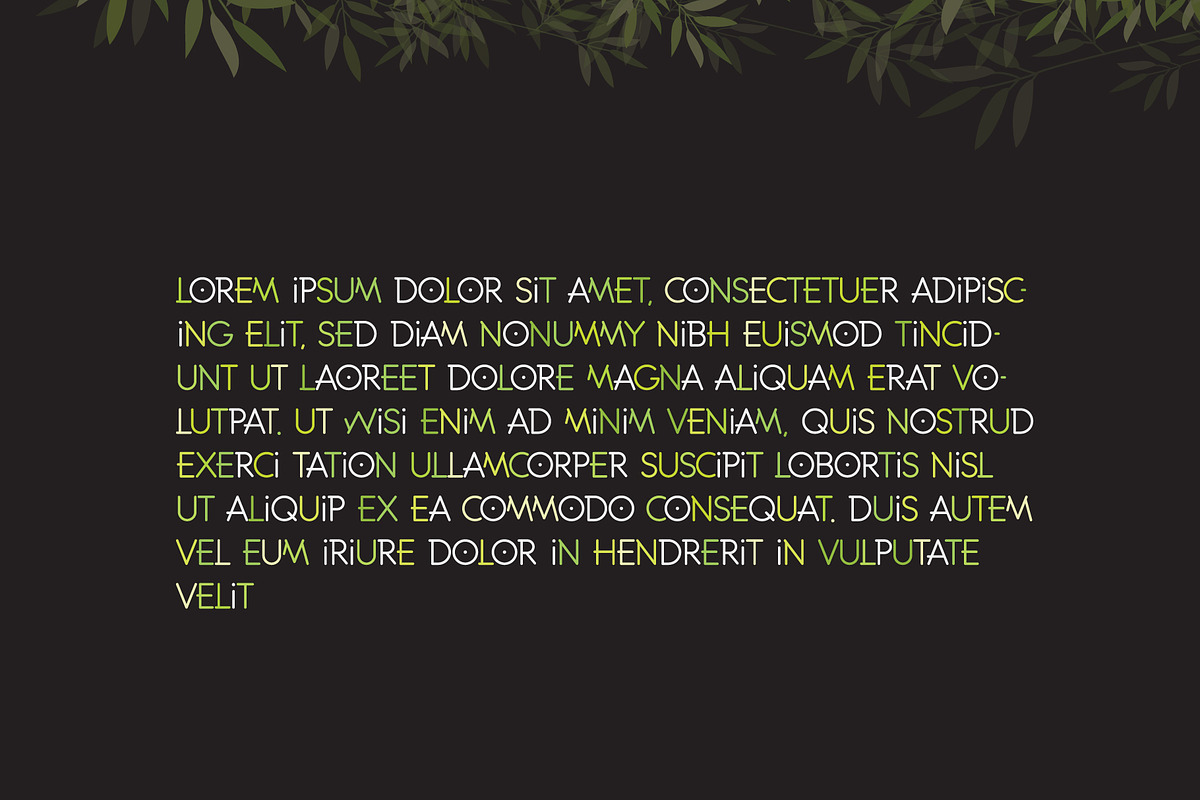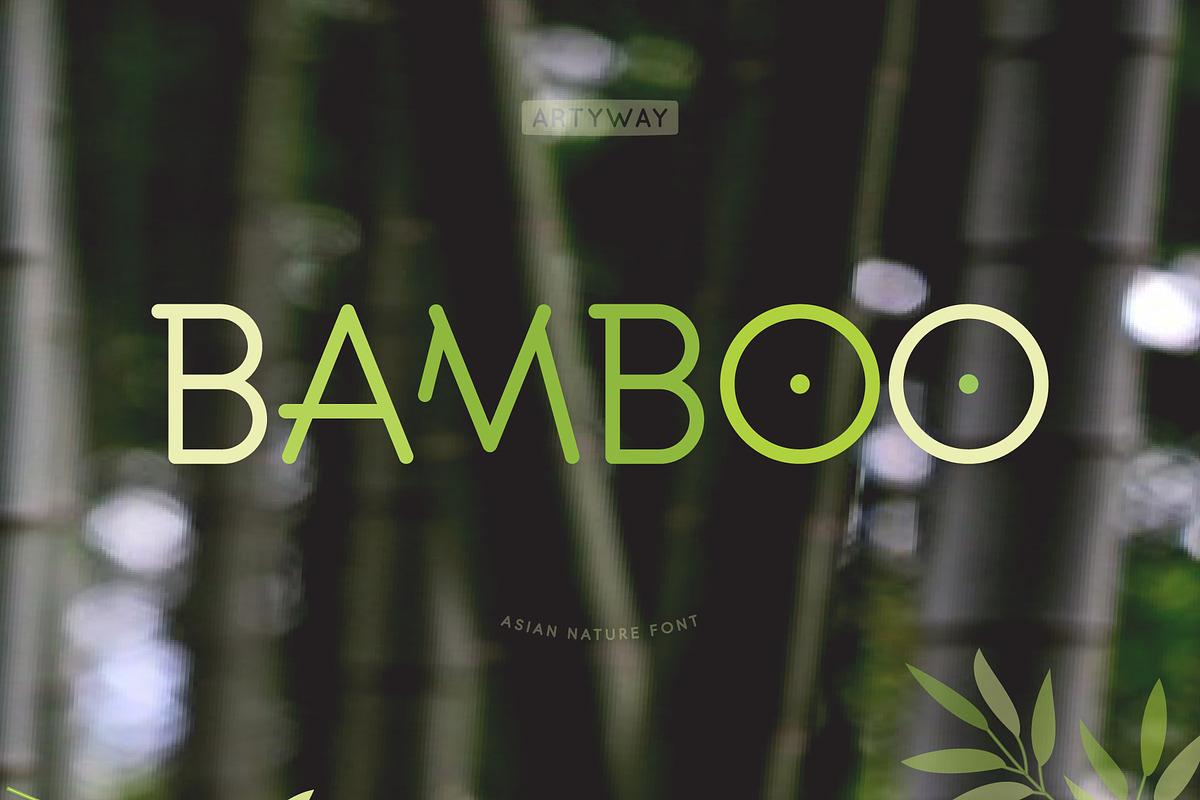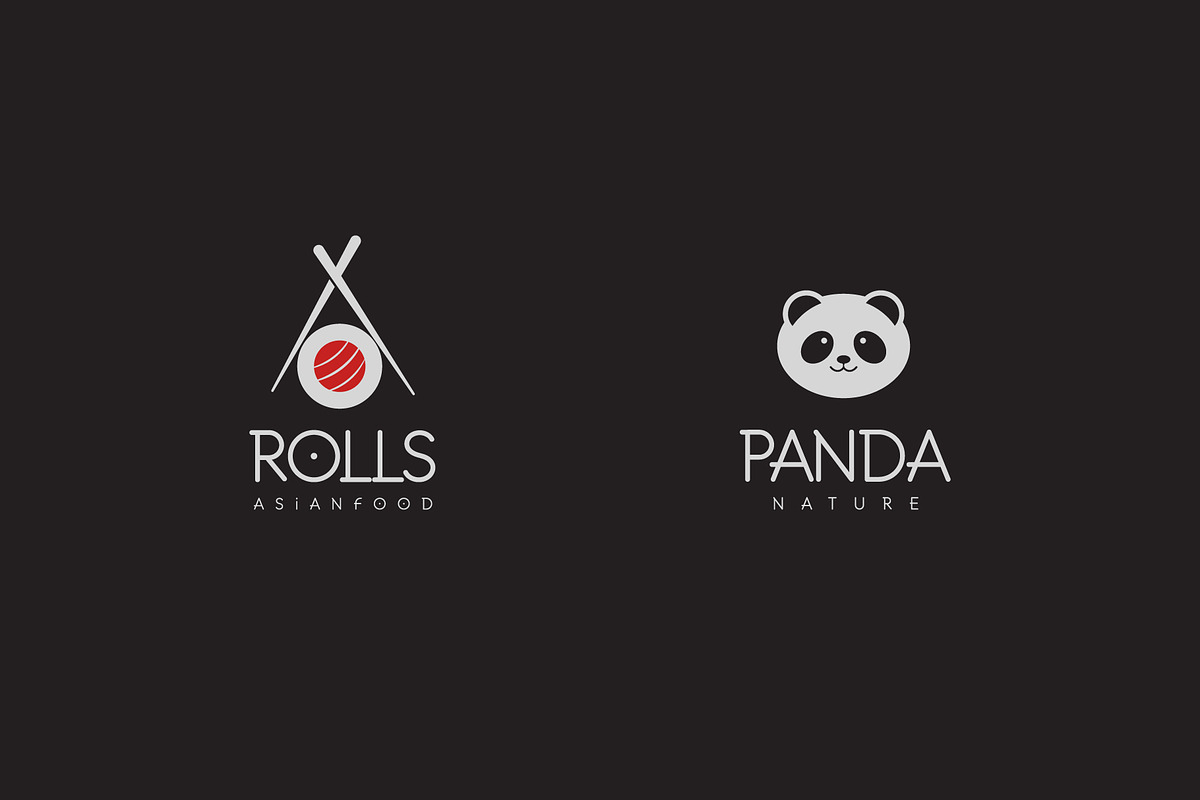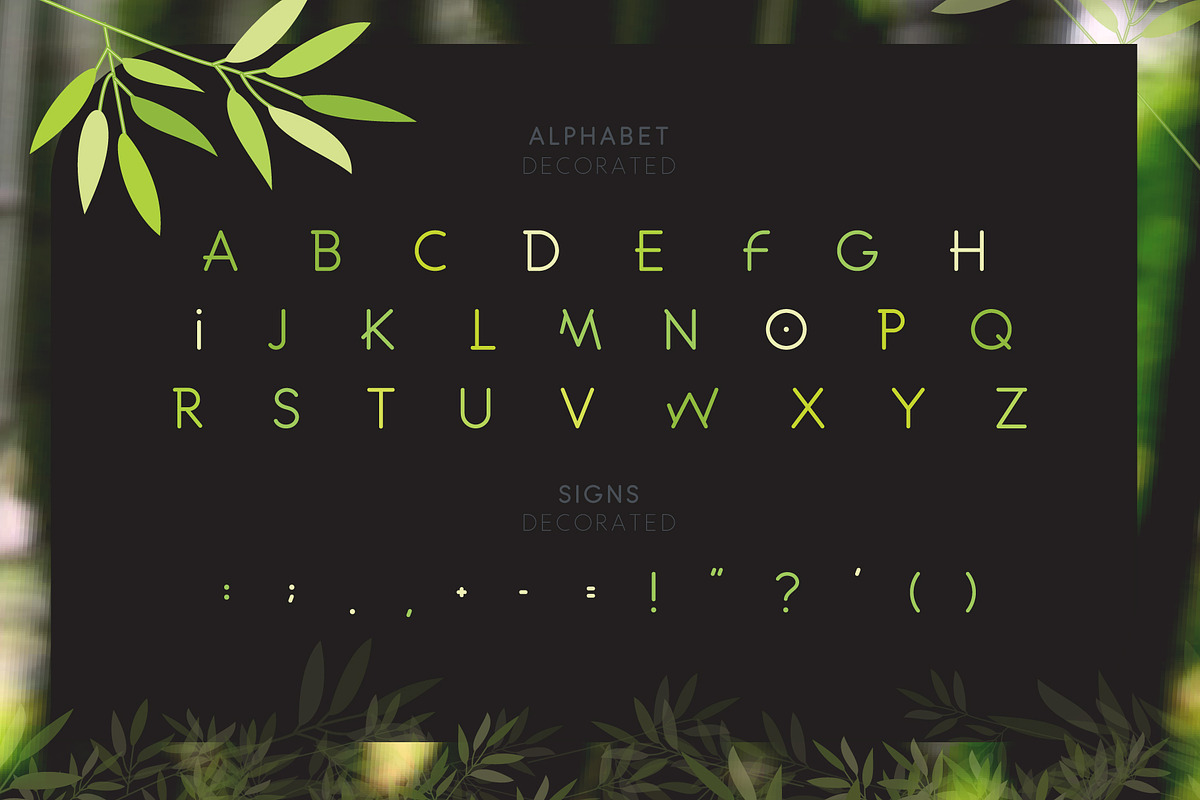
Funny Bamboo Font
New, unique rounded slab font "BAMBOO" inspired by Asia nature and culture. Here, cleanliness and lightness are combined with depth and mystery. Holistic understanding of this beauty is revealed in details.
"Bamboo" has individual character and ideal for products related to Asia nature, in particular China, Japan, Taivana, Philippines, Himalayas, New Guinea, Melanesia and the Northern Territory of Australia and others.
Uppercase english letters
Some basic punctuation